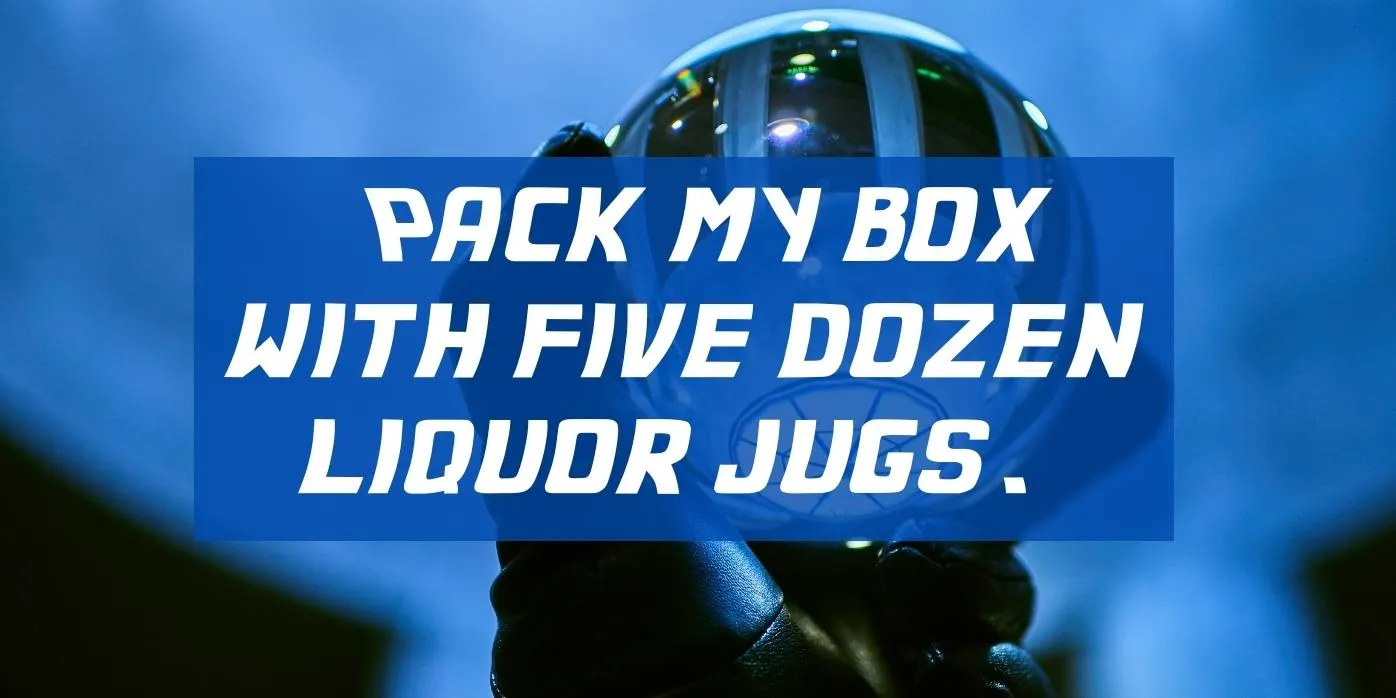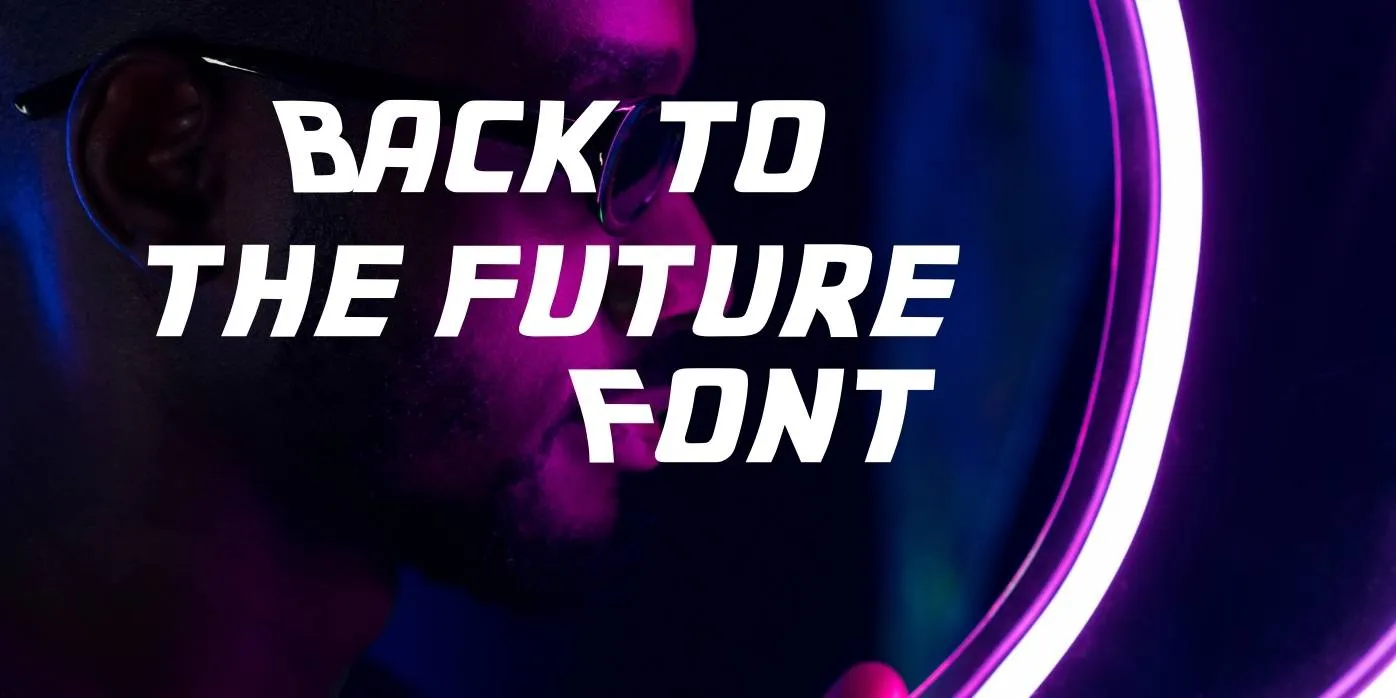
Back To The Future Font
Back To The Future Font was developed and published by Cyril Bourreau. This cute typeface belongs to the display font family. It features a set of uppercase and lowercase letters, numerals, and some punctuation glyphs. This stylish Font is perfect for headlines, posters, and other creative designs.
This typeface is sure to add personality to any project. Freshman Font is similar to this typeface. Space between its characters is tight, so it’s not recommended for body text. However, it can be used for short pieces of text or headlines.
Overall, This Font is a great choice for creative designs. It’s fun, playful, and sure to grab attention.